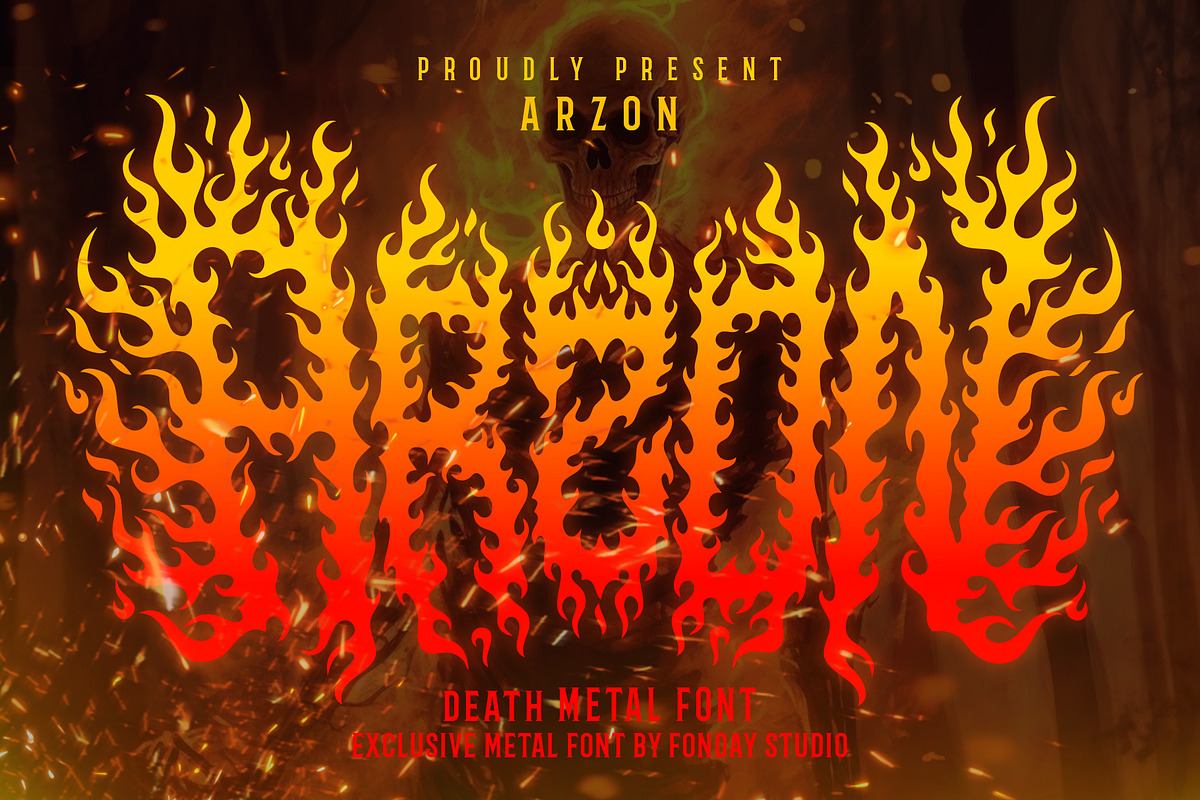
ARZON FIRE – Death Metal Fire Font Free Download
ARZON FIRE – Death Metal Fire Font Free Download is a bold, intense typeface designed to bring a raw, powerful aesthetic to your designs. Inspired by the death metal genre, this font features jagged, fiery edges that make it perfect for album covers, band logos, extreme sports branding, and anything that needs a rebellious, high-energy vibe. Its fierce and fiery look demands attention, making a strong statement across posters, merchandise, and digital media. Whether you're designing for a metal band or creating fiery promotional materials, ARZON FIRE – Death Metal Fire Font Free Download allows you to experiment with its dramatic style in personal projects before purchasing a commercial license. Ignite your designs with the intense power of this fiery, rock-inspired font.